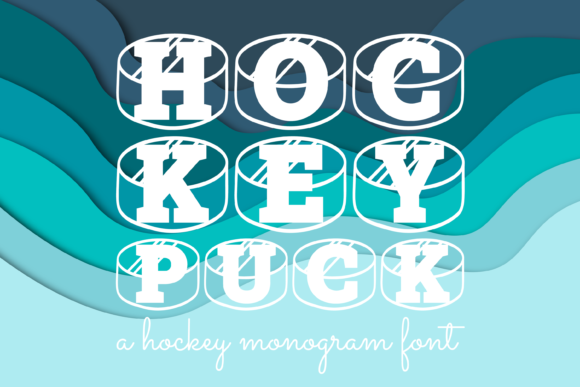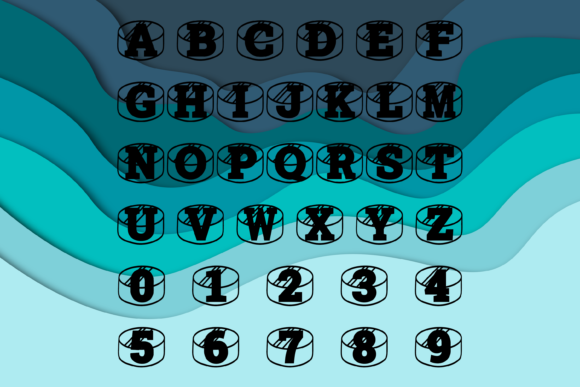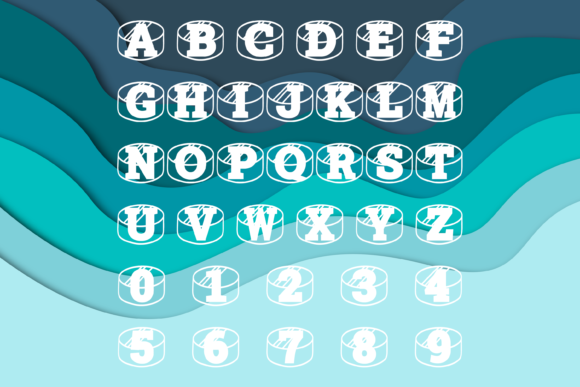
Hockey Puck Font
About the Hockey Puck Font
Presenting Hockey Puck Font, a unique and stylish typeface that will make your work stand out. Hockey Puck is an incredibly cool decorative font. Whether you use it for custom designs, DIY crafts, or just any creation that requires a lovely touch, this font will be an amazing choice.
Its bold, playful forms make Hockey Puck ideal for headlines, short slogans, and logos where a strong visual impact is desired. It works exceptionally well in branding for sports-related products, children’s toys, or anything requiring a fun, energetic feel. However, its decorative nature makes it unsuitable for body text or UI elements; the highly stylized glyphs would hinder readability in longer passages.
Consider pairing Hockey Puck with a clean sans-serif like Open Sans for a balanced contrast, or a playful script font such as Pacifico for a more whimsical feel. A geometric sans-serif like Montserrat could provide a modern edge, while a classic serif like Garamond could offer sophisticated counterpoint if a slightly more formal tone is needed.
Hockey Puck’s overall personality is energetic and bold, though it retains a friendly approachability. Avoid using it in contexts that require sophistication or neutrality; it’s best suited for projects that demand attention and convey a youthful, spirited brand identity.
Hockey Puck Font Usage Examples
Hockey Puck Font Example